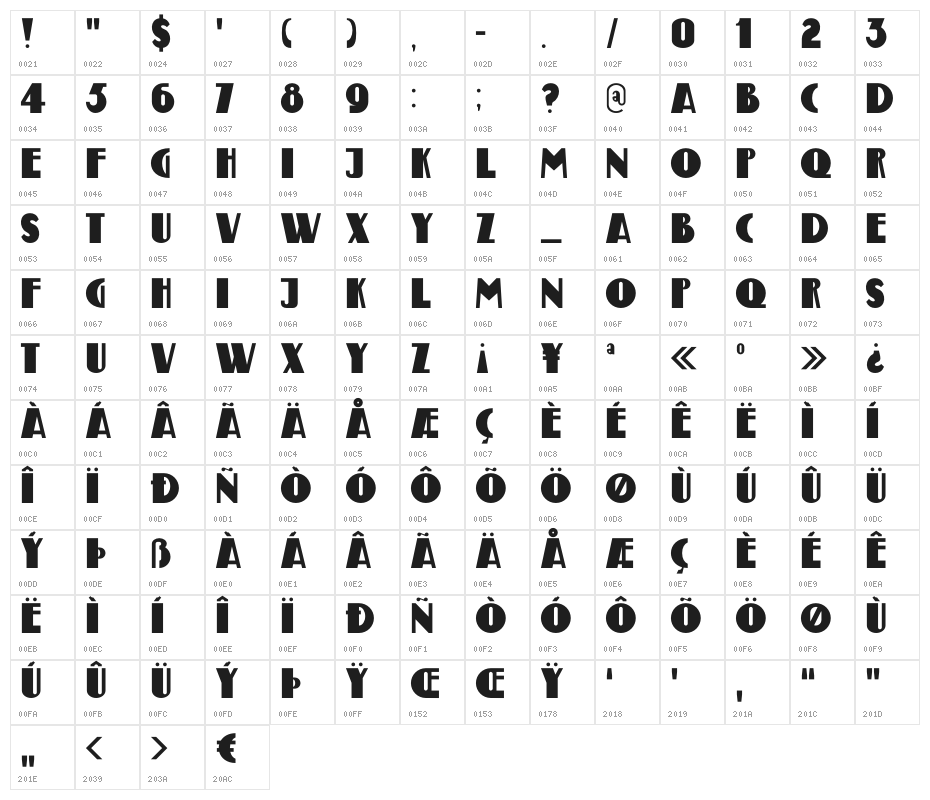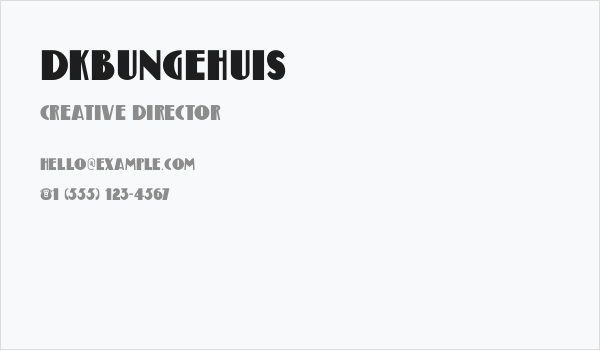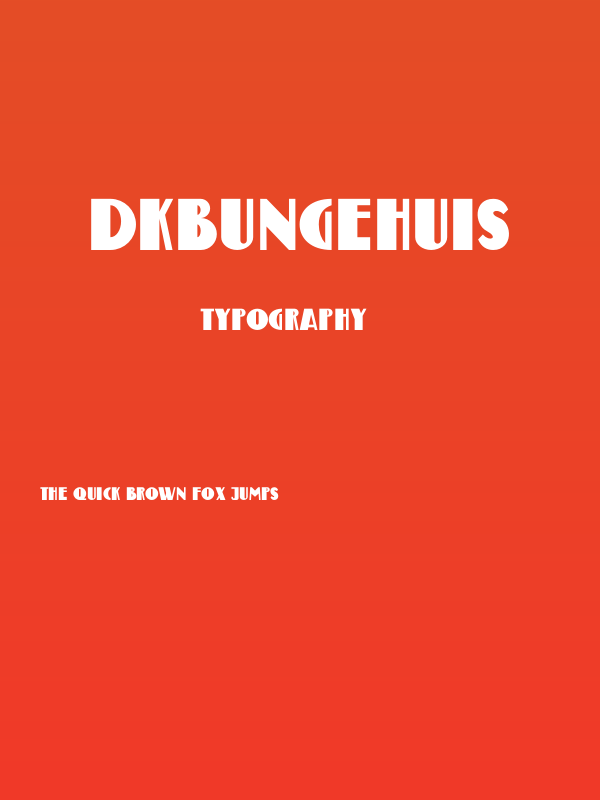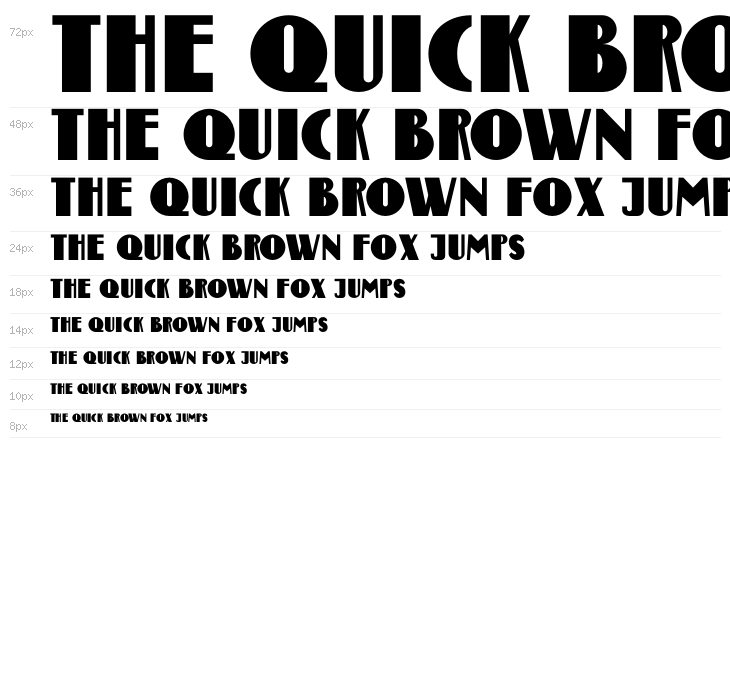
DKBungehuis Font
DKBungehuis Description
This font showcases a bold and impactful style, characterized by thick, geometric letterforms with a distinct Art Deco influence. The uppercase letters are uniform in height, with sharp angles and clean lines that convey a sense of strength and modernity. The lowercase letters maintain the same boldness, offering a cohesive look across different text cases. The numerals are equally robust, ensuring visibility and emphasis. Special characters are creatively designed, adding a playful yet sophisticated touch to the overall aesthetic. This font is ideal for making a statement in any design project.
| Proposed Projects | Ideal for branding, posters, headlines, and any project requiring a strong visual impact. |